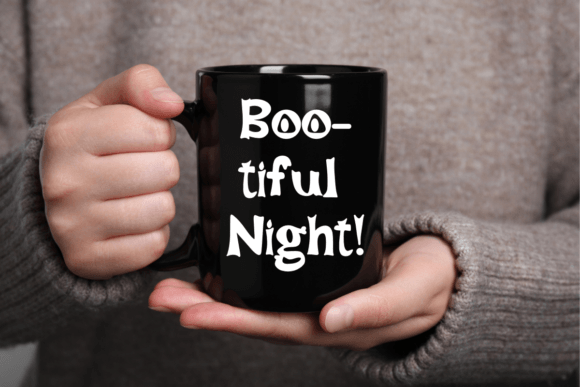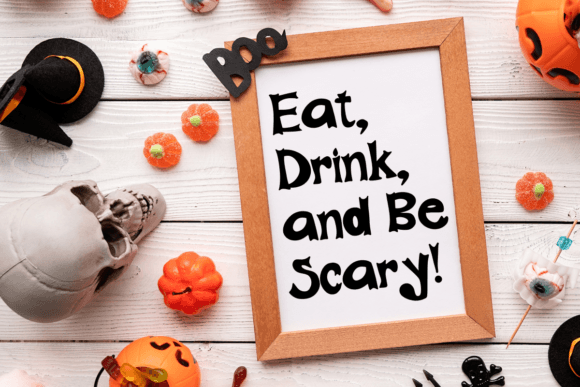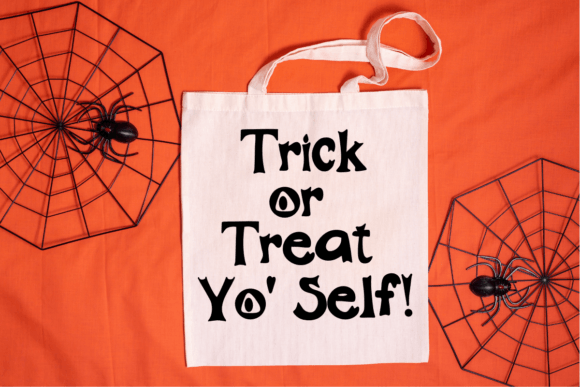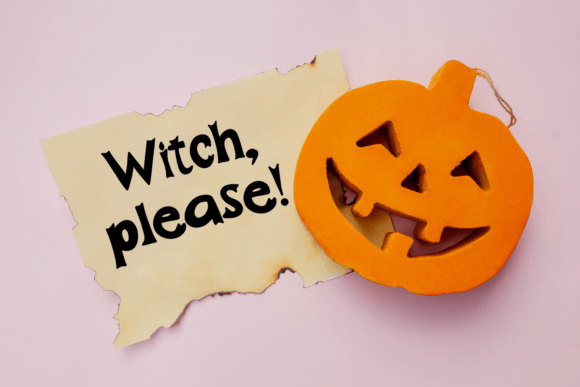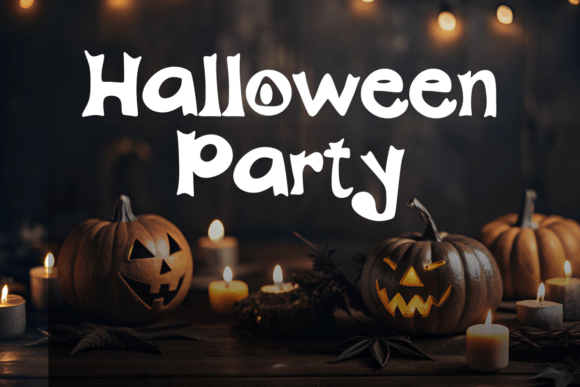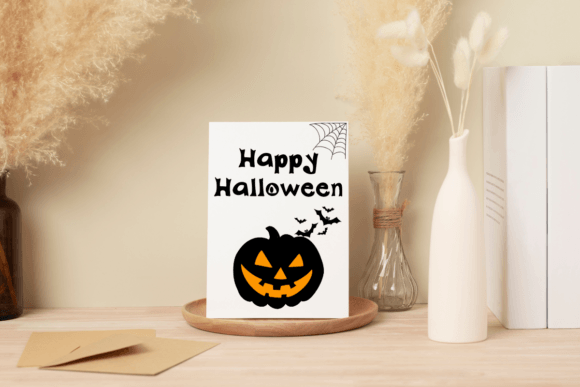
Unleash the Spooky Fun with Ghost House Font: A Playful Display Font for Halloween Projects
Are you ready to add a hauntingly fun touch to your Halloween projects? Look no further than the Ghost House font, a playful display font that’s perfect for designers and crafters looking to create spooky yet fun content. In this article, we’ll explore the versatility of Ghost House and how it can elevate your Halloween projects, from party invitations to themed social media posts.
What is Ghost House Font?
Ghost House is a unique and playful display font designed to capture the essence of Halloween. Its quirky and eerie style makes it an ideal choice for adding a touch of spookiness to your projects. Whether you’re designing for a Halloween party, crafting eerie decorations, or creating themed social media posts, Ghost House is the perfect font to add a playful fright to your creations.
Versatility of Ghost House Font
One of the best things about Ghost House is its versatility. This font can be used for a wide range of projects, including:
• Party Invitations: Create spooky yet fun party invitations that will set the tone for your Halloween bash. Use Ghost House to add a playful touch to your invitation design.
• Spooky Crafts: Add a hauntingly fun touch to your Halloween crafts, such as DIY decorations, gift tags, and more.
• GoodNotes: Use Ghost House to create spooky and fun GoodNotes templates that will add a touch of Halloween spirit to your digital planning.
• Themed Social Media Posts: Create spooky yet engaging social media posts that will capture the attention of your followers. Use Ghost House to add a playful touch to your Halloween-themed posts.
Why Choose Ghost House Font?
So, why choose Ghost House font for your Halloween projects? Here are a few reasons:
• Unique and Playful Style: Ghost House has a unique and playful style that’s perfect for adding a hauntingly fun touch to your projects.
• Easy to Read: Despite its quirky style, Ghost House is easy to read, making it perfect for use in a variety of projects.
• Versatile: Ghost House can be used for a wide range of projects, from party invitations to themed social media posts.
Tips for Using Ghost House Font
Here are a few tips for using Ghost House font in your Halloween projects:
• Experiment with Different Sizes: Experiment with different font sizes to add visual interest to your projects.
• Pair with Other Fonts: Pair Ghost House with other fonts to create a unique and interesting look.
• Add Graphics and Images: Add graphics and images to your projects to enhance the spooky and fun theme.
In conclusion, Ghost House font is a playful display font that’s perfect for adding a hauntingly fun touch to your Halloween projects. Its versatility makes it ideal for various creations, from party invitations to themed social media posts. With its unique and playful style, Ghost House is sure to add a playful fright to all your Halloween projects. So, why not give it a try and see how it can elevate your Halloween designs?